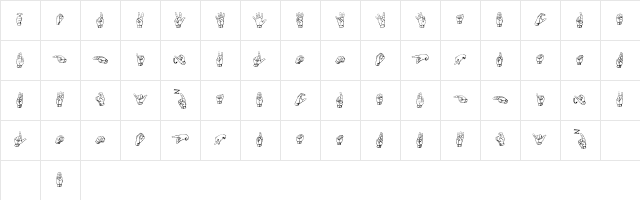
Gallaudet Plain Plain
Design Context for Gallaudet Plain
Gallaudet Plain is a composed and adaptable typeface that performs quietly and consistently across a wide range of design contexts.